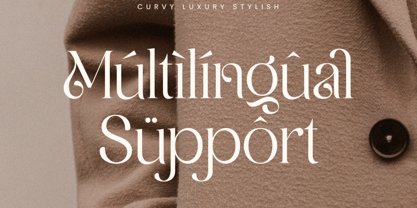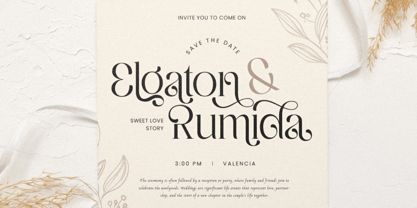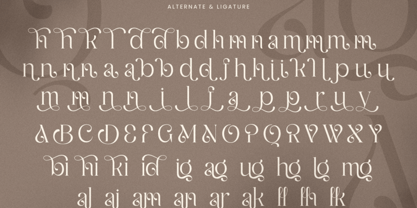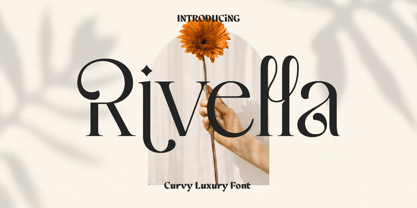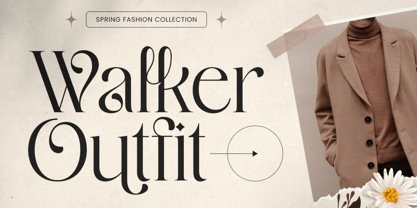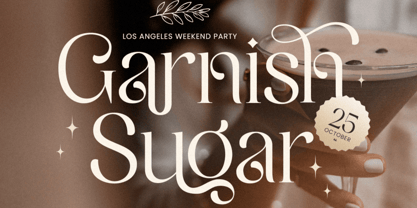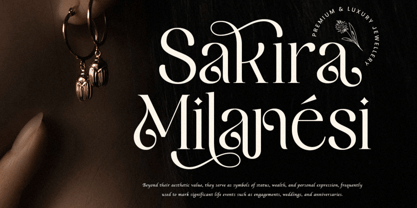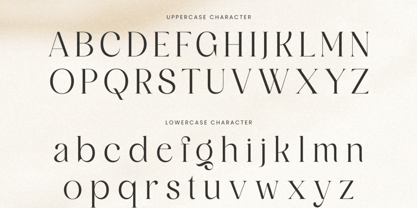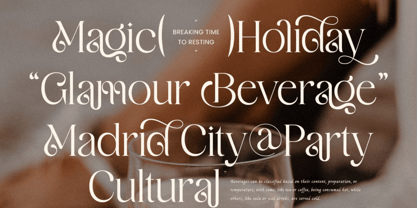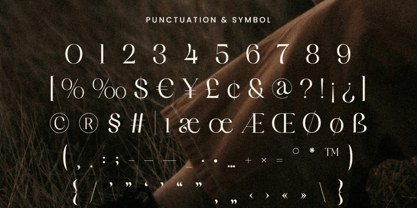
Rivella
The Rivella Font Family was designed by Olivia Love and published by Only Fonts. Rivella contains 1 styles. More about this family
Rivella – Curvy Luxury Font Rivella is a curvy luxury font designed to express elegance through fluid motion and refined detail. Inspired by graceful calligraphic forms and modern luxury branding, Rivella features smooth, flowing curves that create a sense of rhythm and sophistication in every letter. Its carefully balanced shapes bring harmony and beauty, making it a perfect choice for designers who want their work to feel polished, stylish, and effortlessly premium. This font truly shines in high-end applications where visual elegance matters most. From luxury branding and fashion logos to wedding invitations, beauty packaging, and social media designs, Rivella adds a distinctive charm that captures attention. Its expressive curves make headlines feel artistic and engaging, while its clean structure ensures readability across both print and digital formats. Rivella carries a soft yet confident personality. It blends artistic flair with modern refinement, allowing your designs to communicate both creativity and exclusivity. Whether you are building a brand identity or designing custom stationery, Rivella transforms simple text into a visual statement that feels rich and memorable. Rivella Curvy Luxury Font Features: • Elegant ligatures and alternate characters • Unique punctuation, numbers, and symbols • Uppercase and lowercase • OpenType features • Multilingual support for 50 plus languages. Bring a sense of luxury, flow, and artistic sophistication into your projects with Rivella, a font crafted to leave a lasting impression.